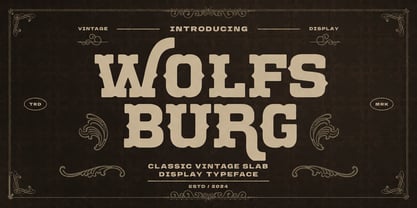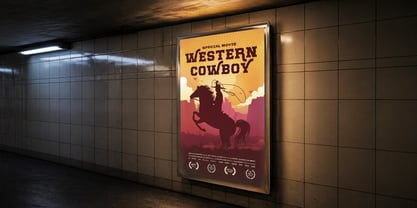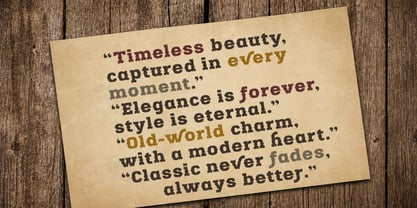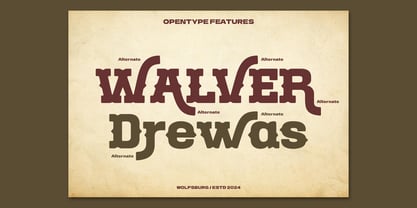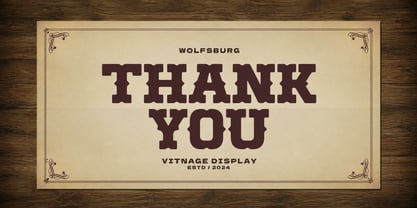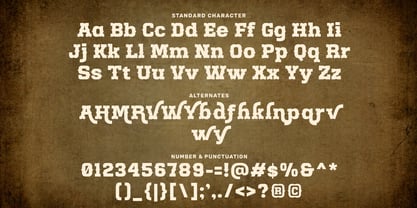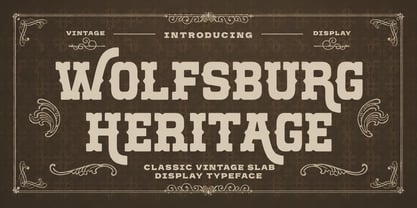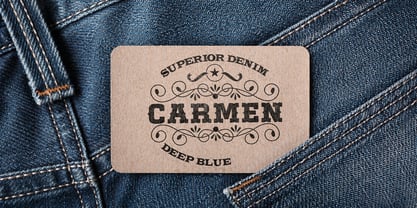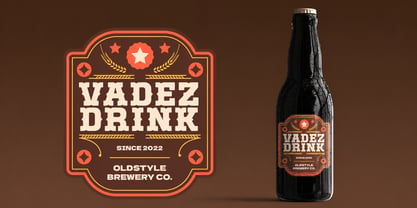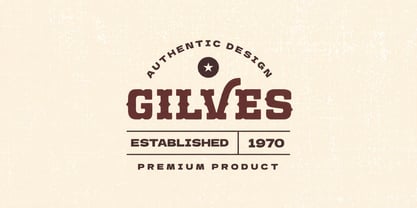
Wolfsburg – Classic Slab Serif Display Font
Wolfsburg is a bold slab serif font that captures the timeless charm of retro and vintage typography. Designed with strong letterforms and solid slab serifs, this typeface delivers a powerful visual presence, making it perfect for designs that need character, strength, and classic style.
Inspired by traditional vintage lettering, Wolfsburg blends nostalgic aesthetics with modern clarity. Its structured shapes and balanced proportions ensure excellent readability while maintaining a bold display personality.
Created primarily for display use, Wolfsburg works beautifully in large formats where its strong slab serif details can truly shine. Whether used for posters, logos, signage, packaging, or branding, this font instantly adds a distinctive retro feel to your design.
With its confident structure and timeless style, Wolfsburg fits perfectly into projects that require a vintage, western, retro, or classic editorial look. It adapts effortlessly to both digital and print applications, ensuring your typography remains impactful across different mediums.
From retro branding and vintage posters to bold headlines and product packaging, Wolfsburg helps create designs that feel authentic, memorable, and full of personality.
Key Features
Classic Slab Serif Font
Strong slab serifs that create bold and confident typography.
Retro & Vintage Style
Inspired by classic vintage display lettering.
Display Typeface
Optimized for headlines, logos, and large typography.
Bold and Readable Structure
Designed to maintain clarity while delivering strong visual impact.
Versatile Design
Suitable for both digital and print projects.
Multilingual Support
Extended character set for international use.
Perfect For
• Vintage Logo Design
• Retro Branding Projects
• Posters & Headlines
• Packaging Design
• Signage & Labels
• Editorial Titles
• Merchandise & Apparel
• Advertising & Marketing Materials
Add Bold Vintage Character to Your Designs
If you’re looking for a typeface that blends classic slab serif strength with retro vintage style, Wolfsburg is the perfect choice. Its bold structure and timeless appeal make it ideal for designers who want typography that stands out with power, authenticity, and personality.